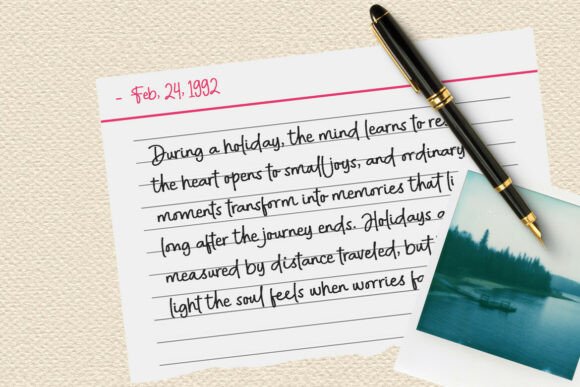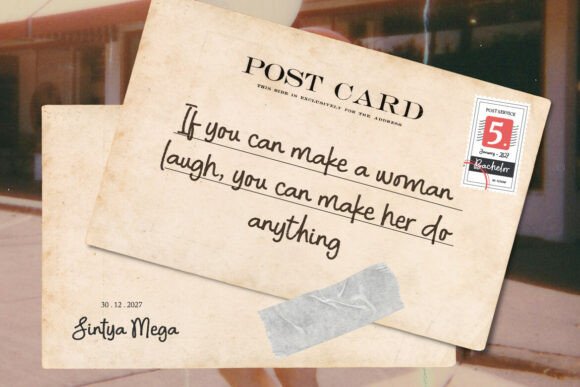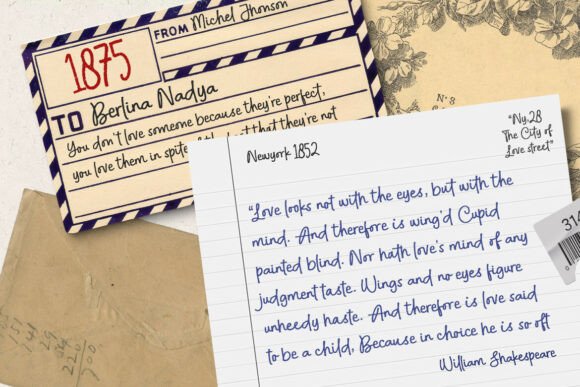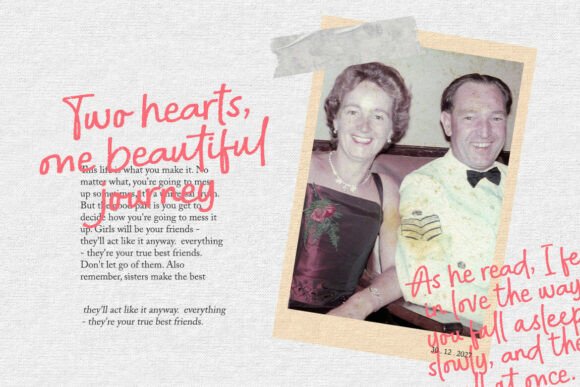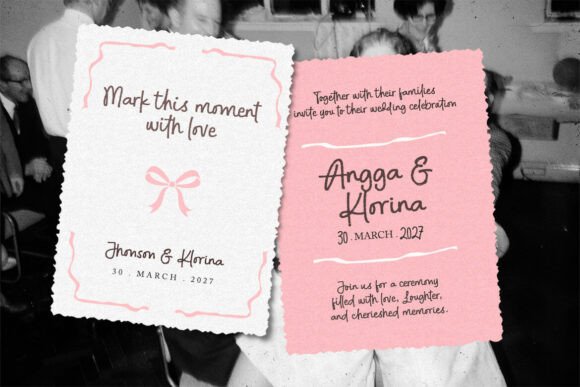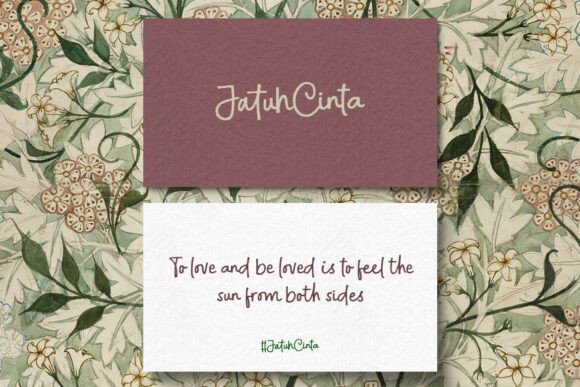
The Perfect Imperfection: Unlocking the Power of the Bachelor Notes Font
Have you ever sat down with a blank sheet of paper, a pen in hand, and a burst of creative energy that refuses to be contained? That’s the moment when the magic happens, and the imperfections become the perfect imperfections. It’s in these raw, unbridled moments that we find the true essence of handwritten typography.
Meet the Bachelor Notes Font, a beautifully imperfect font that captures the essence of organic handwriting. Crafted with a bold grunge texture and an expressive spirit, this font is perfect for designers looking to add a human touch to their typography. With its uneven lines, rough edges, and subtle distressing, the Bachelor Notes Font brings an authentic, raw energy to your designs.
Bachelor Notes Font Key Features
- Font Family: Bachelor Notes is a unique, hand-drawn script font designed for formal and informal writing.
- Font Styles: Regular, Italic, Bold, Bold Italic
- Unique Characteristics: The font features a distinctive, elegant script design with connected letters and a natural flow, perfect for adding a personal touch to documents, invitations, and other written materials.
Bachelor Notes Font Review
Overall, I was pretty excited to dive into the Bachelor Notes font. The first thing that caught my eye was the unique, handwritten feel ✨. The font does a great job of evoking a sense of informality and approachability, which would be perfect for projects like blogs, social media, or even wedding invitations.
- Unique, handwritten feel ✨
- Perfect for informal projects ✨
- Available in various weights and styles ✨
However, I did encounter a few limitations ⚠️. One of the main issues I had was with the font’s consistency. At times, the letters seemed a bit uneven or disconnected, which can make it difficult to read. Additionally, I found that the font didn’t work as well in smaller sizes ⚠️.
- Inconsistencies in letter spacing and shape ⚠️
- Doesn’t work well in smaller sizes ⚠️
Overall, I would give the Bachelor Notes font 3.5 out of 5 stars. While it’s a unique and interesting font, the limitations hold it back from being a top choice for me. With a bit more refinement and consistency, I think this font could really shine.
For optimal results, use Bachelor Notes Font in conjunction with a clean and minimalist design aesthetic.
Experiment with different font sizes and styles to create visual hierarchy and emphasis.
Bachelor Notes Font is ideal for:
- Education and academic settings.
- Business and corporate communications.
- Personal projects and portfolios.
Alternatives to Bachelor Notes Font
Playfair Display is a high-end serif font that can be used for headings and titles. It features elegant and refined details that are perfect for luxury brands and high-end products. When to use: Use for high-end fashion brands, luxury hotels, or any project that requires a touch of sophistication.
Comparison to Bachelor Notes: While Bachelor Notes has a more subtle and elegant feel, Playfair Display is more dramatic and attention-grabbing. Bachelor Notes is more versatile and can be used for body text, while Playfair Display is best reserved for headings and titles.
Copperplate
Copperplate is a classic script font that is perfect for adding a touch of elegance and sophistication to your designs. It features beautiful connections between letters and is great for use in invitations, wedding stationery, and other high-end stationery.
Comparison to Bachelor Notes: Copperplate has a more fluid and connected feel, while Bachelor Notes is more formal and structured. Bachelor Notes is more suitable for formal documents and business reports, while Copperplate is better suited for invitations and stationery.